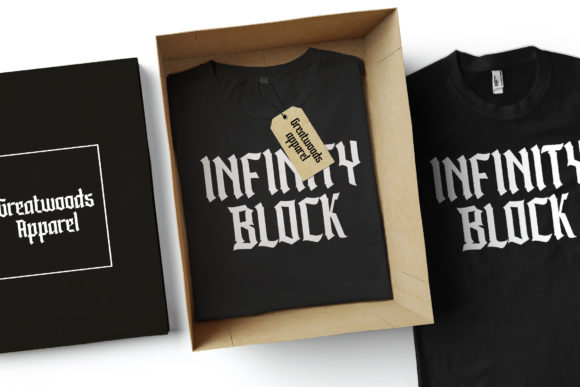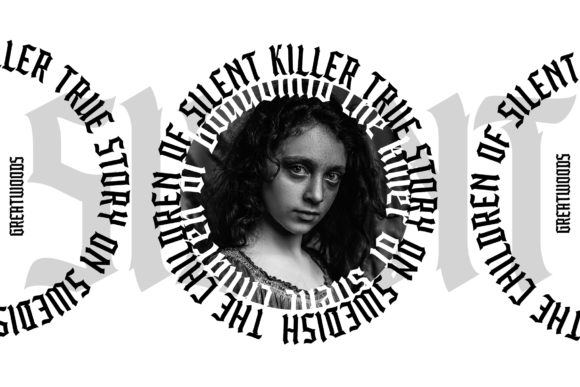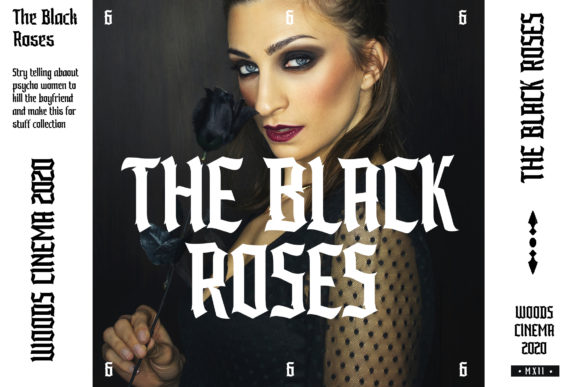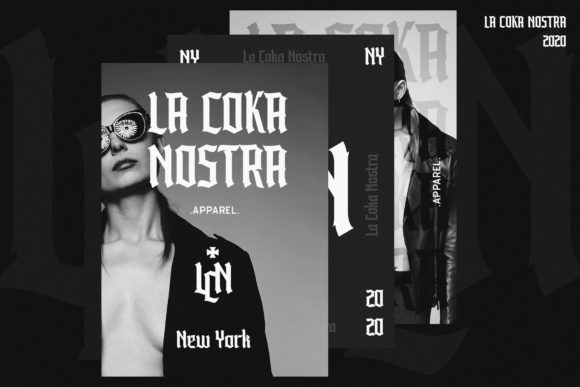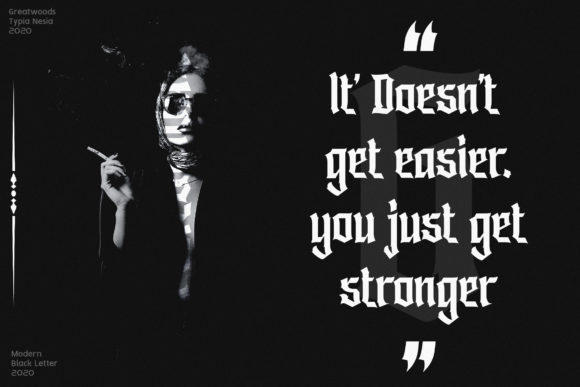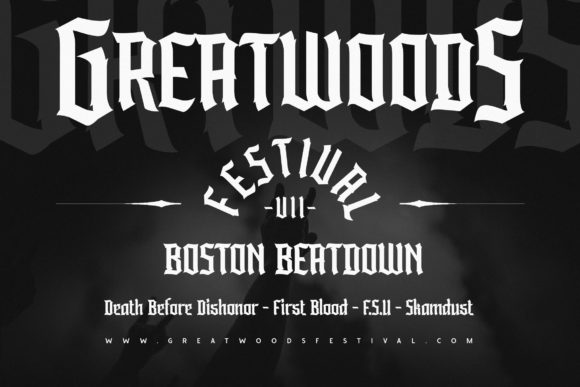
Introducing Greatwoods Font: A Bold and Versatile Blackletter Font
Are you a designer or crafter looking for a font that can elevate your creations and make them stand out from the crowd? Look no further than Greatwoods Font, a bold and thick lettered blackletter font that is sure to become an incredibly valuable asset to your font library.
What is Greatwoods Font?
Greatwoods Font is a blackletter font that is characterized by its bold and thick lettering. Blackletter fonts are a classic style of typography that originated in the Middle Ages and are known for their dramatic and ornate appearance. Greatwoods Font takes this classic style and updates it for modern use, making it perfect for a wide range of design and crafting applications.
Key Features of Greatwoods Font
So what makes Greatwoods Font so special? Here are just a few of its key features:
- Bold and Thick Lettering: Greatwoods Font features bold and thick lettering that is sure to grab attention. Whether you’re using it for a title, heading, or body text, this font is sure to make a statement.
- Versatile: Despite its bold and dramatic appearance, Greatwoods Font is incredibly versatile. It can be used for a wide range of design and crafting applications, from invitations and greeting cards to posters and social media graphics.
- Easy to Read: Despite its bold and ornate appearance, Greatwoods Font is surprisingly easy to read. This makes it perfect for use in body text, as well as headings and titles.
- High-Quality Design: Greatwoods Font is designed to the highest standards, with clean lines, precise curves, and a level of detail that is unmatched by many other fonts.
How to Use Greatwoods Font
So how can you use Greatwoods Font in your designs and crafts? Here are just a few ideas to get you started:
- Invitations and Greeting Cards: Greatwoods Font is perfect for use in invitations and greeting cards, where its bold and dramatic appearance is sure to make a statement.
- Posters and Flyers: Use Greatwoods Font to create eye-catching posters and flyers that are sure to grab attention.
- Social Media Graphics: Greatwoods Font is perfect for use in social media graphics, where its bold and easy-to-read appearance is sure to help your message stand out.
- Logos and Branding: Consider using Greatwoods Font in your logo or branding, where its unique and memorable appearance is sure to help you establish a strong identity.
Why Choose Greatwoods Font?
So why should you choose Greatwoods Font over other fonts? Here are just a few reasons:
- Unique and Memorable: Greatwoods Font has a unique and memorable appearance that is sure to help your designs and crafts stand out from the crowd.
- High-Quality Design: Greatwoods Font is designed to the highest standards, ensuring that it looks great in any design or craft application.
- Versatile: Greatwoods Font is incredibly versatile, making it perfect for use in a wide range of design and crafting applications.
In conclusion, Greatwoods Font is a bold and versatile blackletter font that is sure to become an incredibly valuable asset to your font library. With its bold and thick lettering, versatile design, and high-quality construction, this font is perfect for use in a wide range of design and crafting applications. Whether you’re a designer, crafter, or simply someone who loves to create, Greatwoods Font is a must-have font that is sure to help you take your creations to the next level.